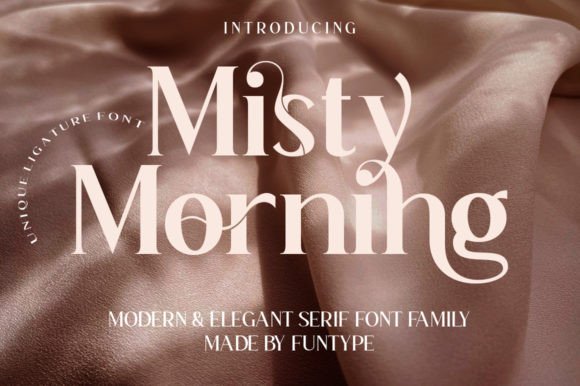
Welcome to the world of Misty Morning Font, a modern and stylish serif font crafted to elevate your creativity and bring your ideas to life. Immerse yourself in the enchanting beauty of this font, expertly designed to captivate and allure.
Misty Morning Font is a visual masterpiece, a fusion of classic elegance and contemporary charm. Its graceful curves and delicate strokes dance across the page, creating an aura of sophistication that is both timeless and captivating. This font is a perfect choice for those seeking to add a touch of refinement and distinction to their designs.
With Misty Morning Font, you'll discover a world of endless possibilities. Its versatility knows no bounds, making it an ideal choice for a wide range of creative projects. From elegant wedding invitations to captivating social media posts, from stunning logos to eye-catching marketing materials, Misty Morning Font will elevate your designs to new heights.
Unleash your imagination and let Misty Morning Font guide you on a creative journey like no other. Experience the joy of seamless creativity as you effortlessly craft designs that speak volumes and leave a lasting impression. Embrace the power of this font and watch as your ideas take flight, reaching new levels of excellence.